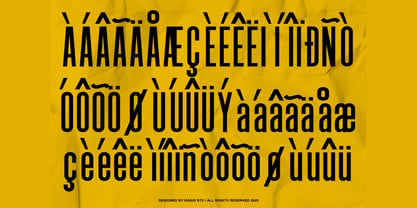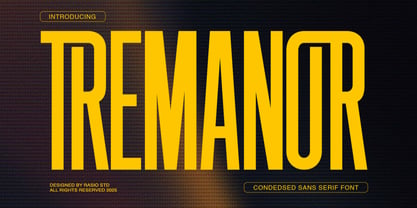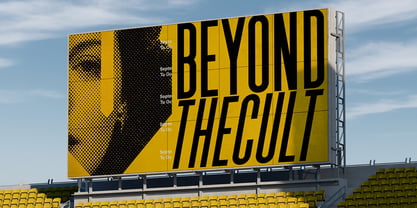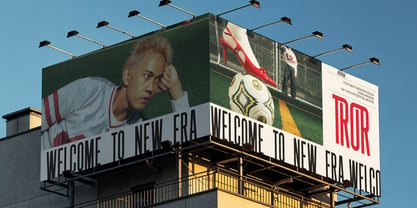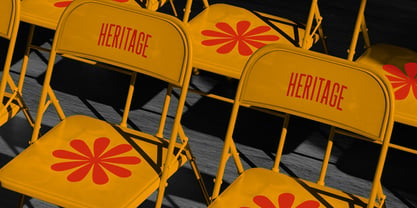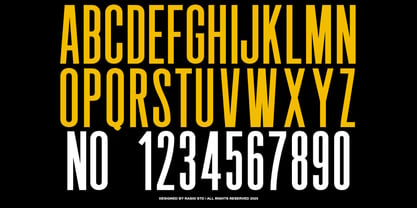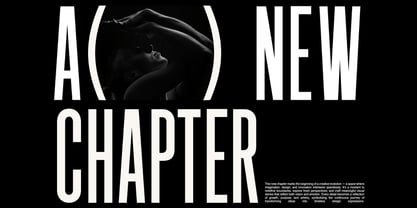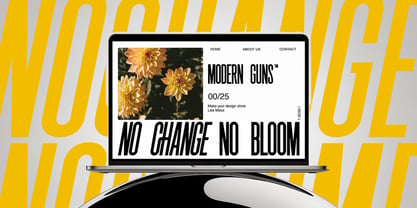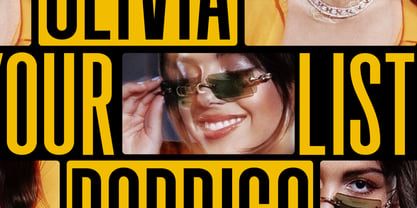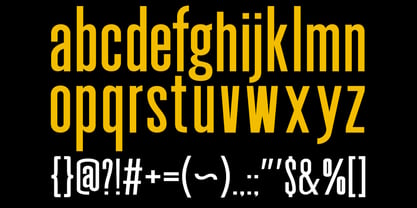
Tremanor
by Rasio Studio
The Tremanor Font Family was designed by Fajar Indra and published by Rasio Studio. Tremanor contains 1 styles. More about this family
Tremanor is a bold condensed sans serif font designed to create strong visual impact in modern typography. Built with tall proportions, sharp vertical structure, and clean minimal strokes, this typeface delivers a powerful presence that works perfectly for headlines and display design. Tremanor is designed for high-impact visual design where strong typography is essential. Its condensed structure makes it ideal for posters, branding, sports graphics, advertising, editorial headlines, album covers, streetwear branding, and modern marketing campaigns.